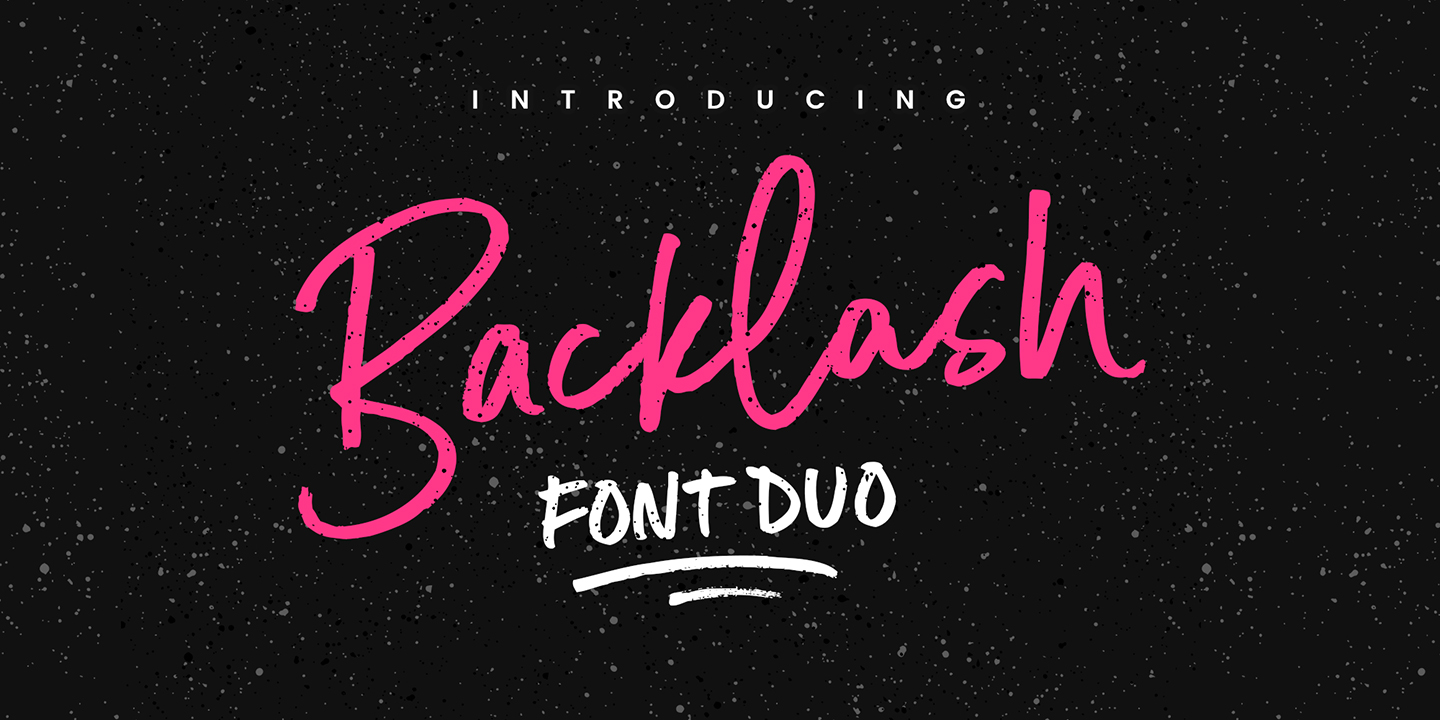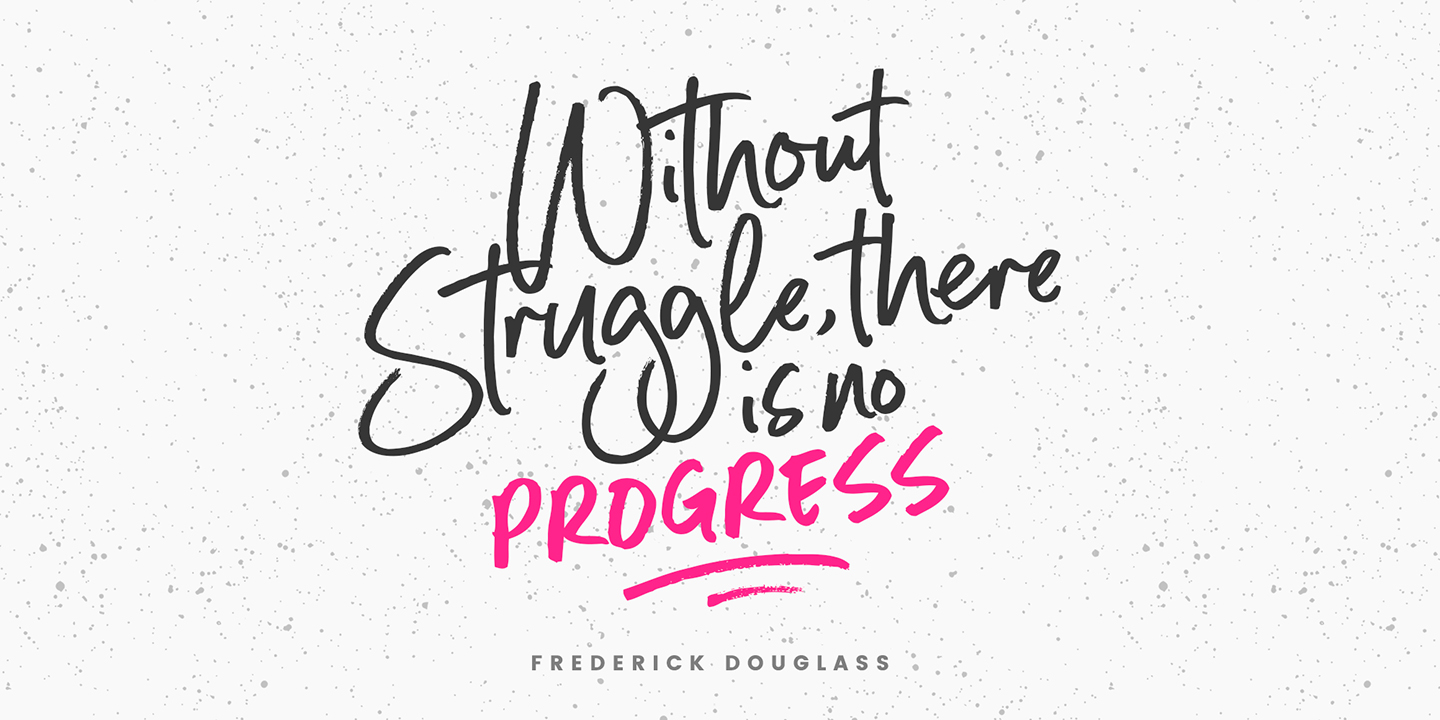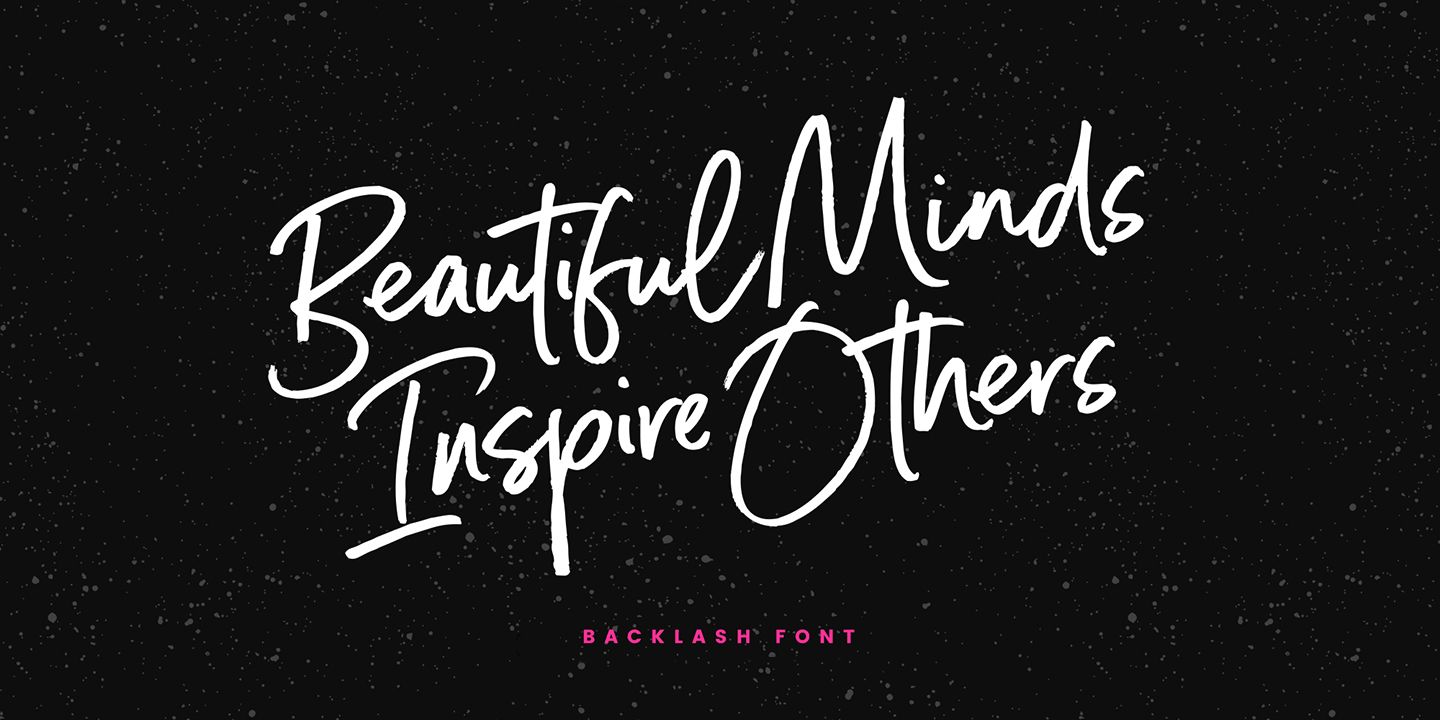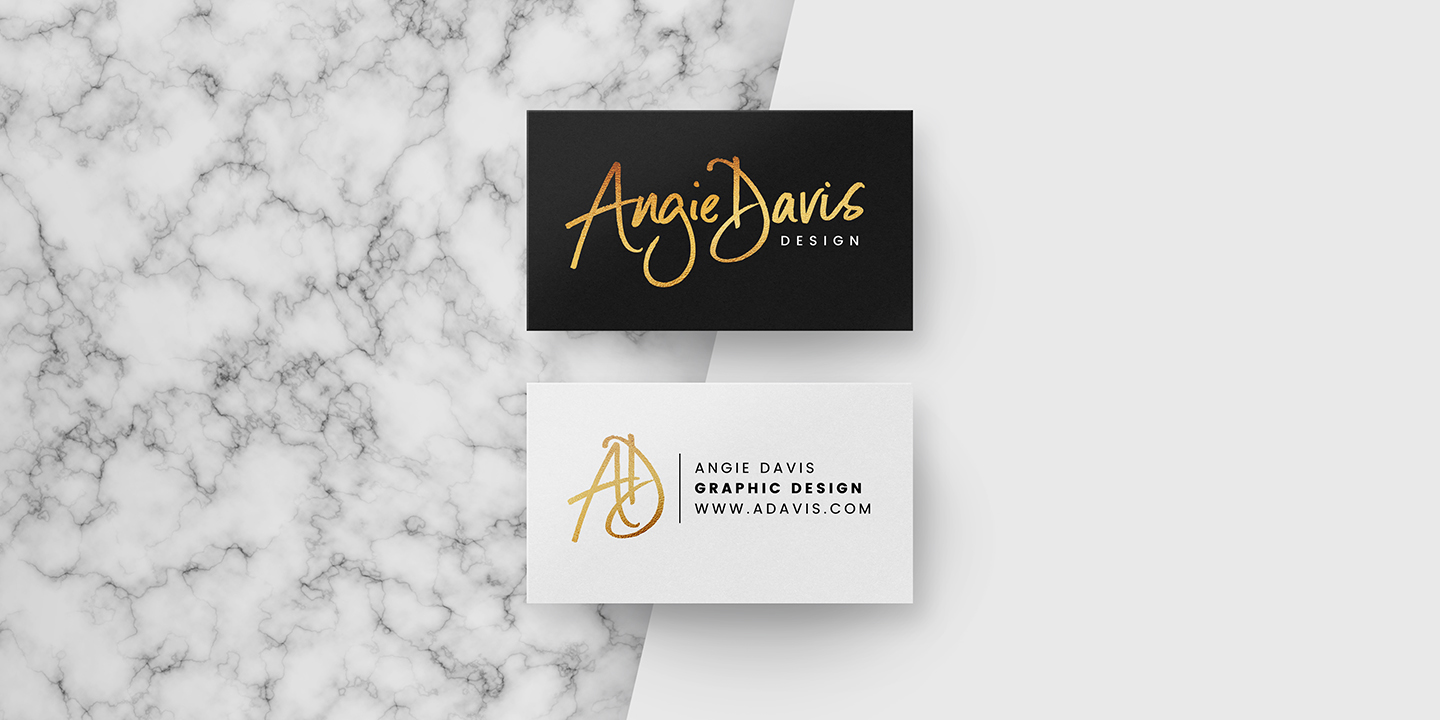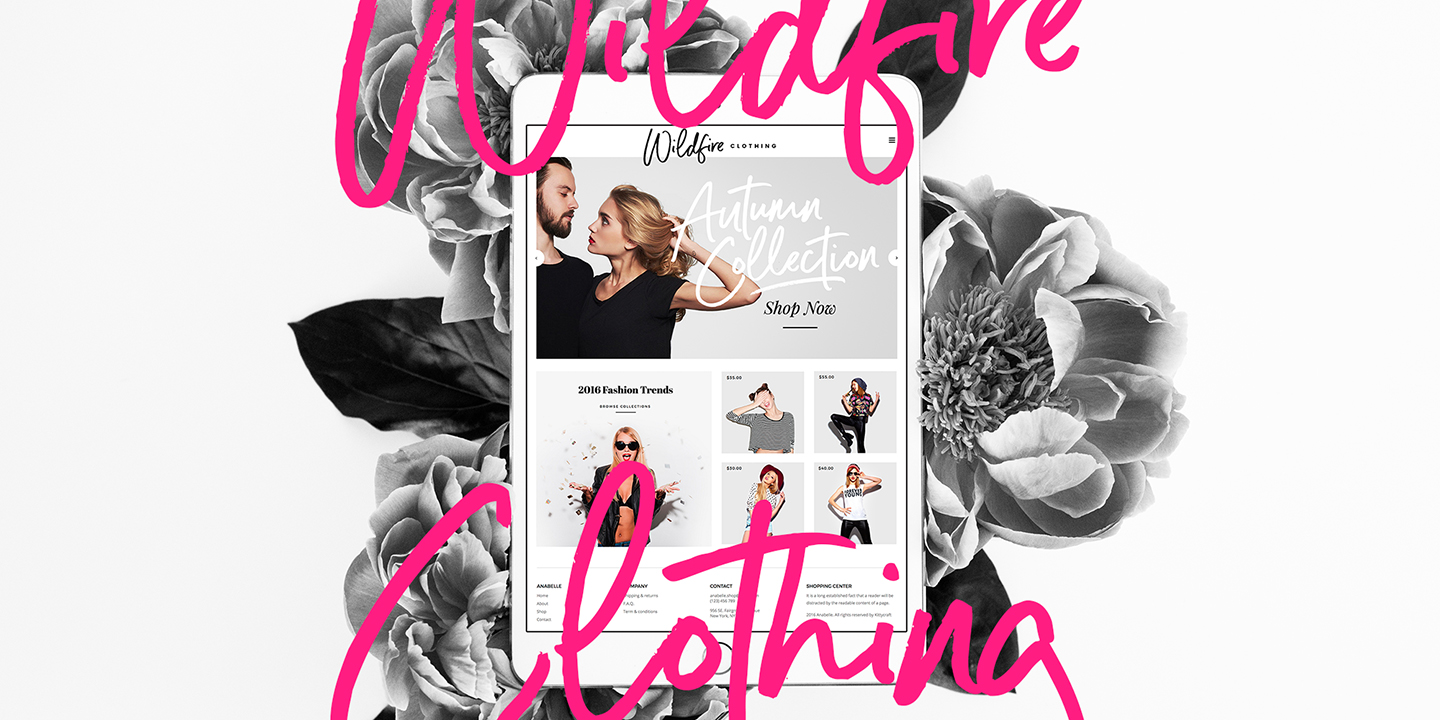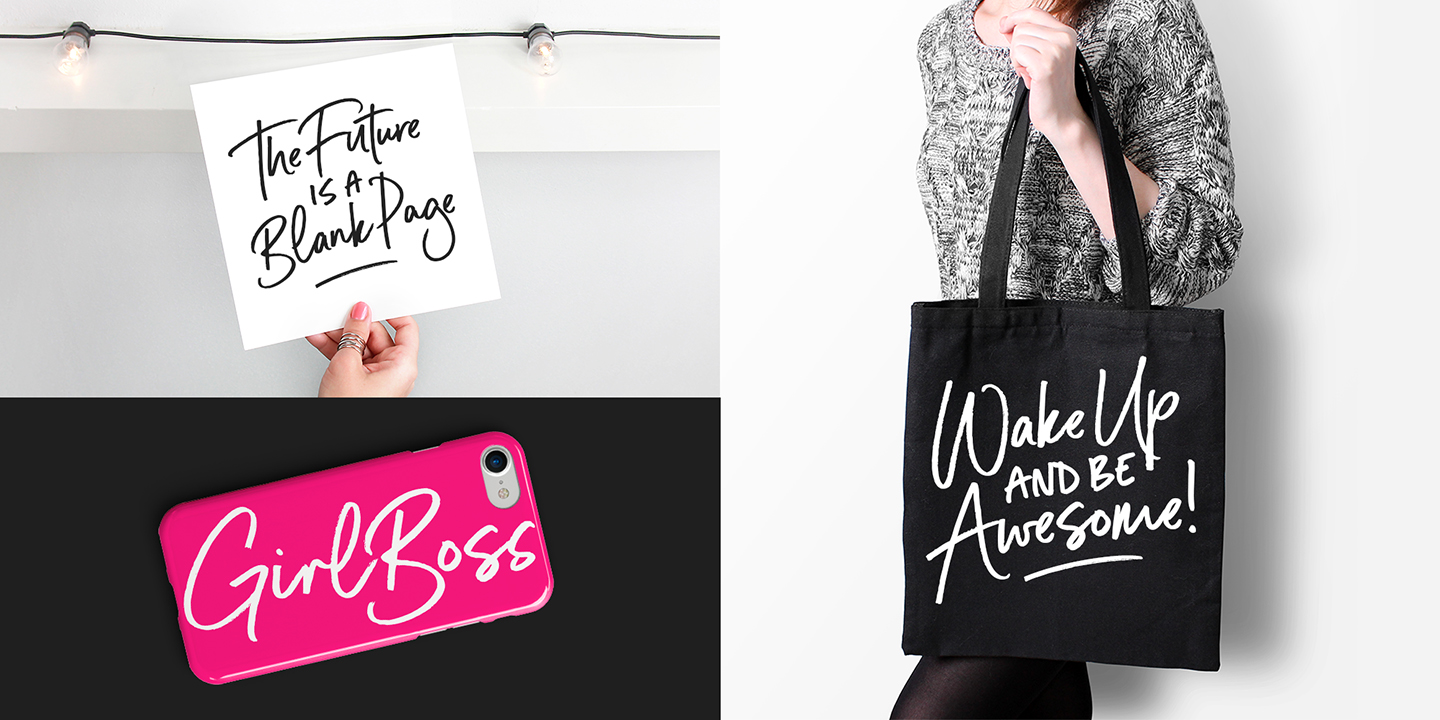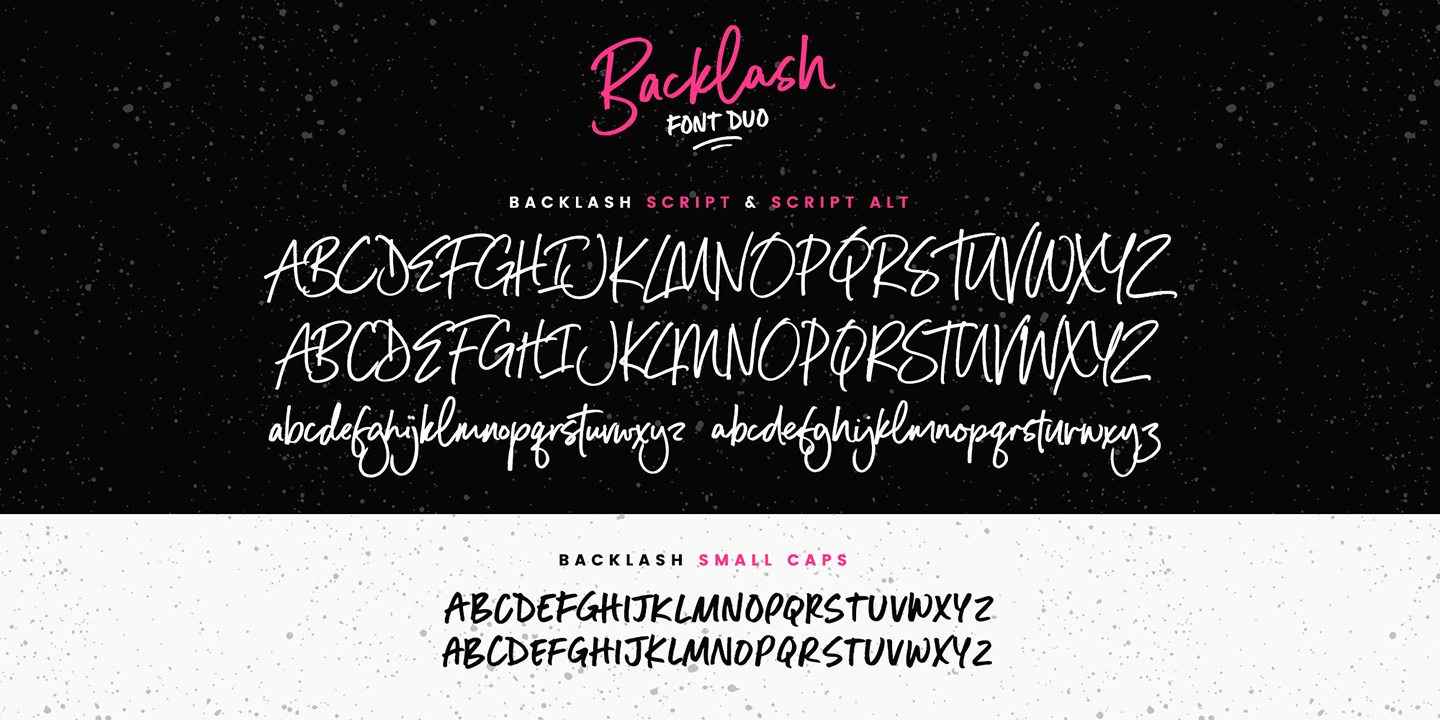
About the Backlash Duo Font
About Backlash Font Duo Font Family Introducing Backlash Font Duo! With a fancy script and a small-caps companion, this passionate pair of hand-drawn marker fonts is ideal for designing handwritten quotes, branding & logo projects, merchandise, social media posts and product packaging, Backlash includes the following features;Backlash Script • A hand-drawn script font containing upper & lowercase characters, numerals and a large range of punctuation